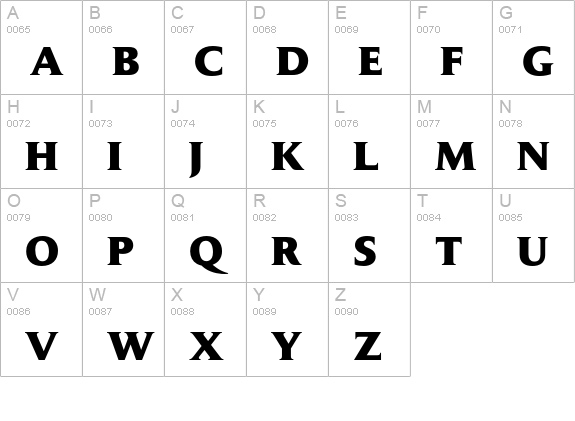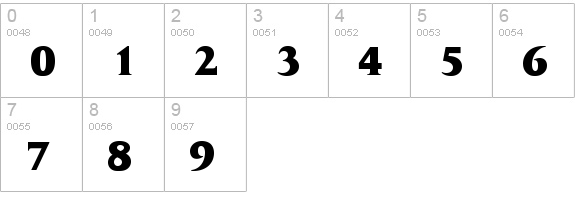
Jaeger Daily News Extra Bold is a strong, high-contrast variant in the Jaeger typeface family \xE2\x80\x94 well suited to headlines, attention-grabbing titles, and strong calls-to-action.
Introducing Jaeger Daily News Extra Bold font, a sensational typeface that exudes authority and commands attention with its bold and powerful design. Designed for those who aim to make a bold statement, this font is perfect for headlines, titles, and any project that requires a strong typographic presence. With its sturdy and commanding letterforms, Jaeger Daily News Extra Bold font is sure to captivate readers and leave a lasting impression. Its sleek and modern appearance perfectly balances legibility and style, making it suitable for both print and digital media. What makes Jaeger Daily News Extra Bold font even more remarkable is that it is freely available to download at FontsMarket.com. Yes, you read that right – this extraordinary font can be yours at absolutely no cost. Now, you can enhance your designs with a professional and impactful typeface without breaking the bank. Whether you're a graphic designer, a web developer, or simply someone who appreciates beautiful typography, Jaeger Daily News Extra Bold font is a must-have addition to your font library. Its versatility and powerful presence will elevate any project and grab the attention of your audience. So why wait? Head over to FontsMarket.com and download Jaeger Daily News Extra Bold font today. Unleash the power of this captivating typeface and make a lasting impression with every word you write.